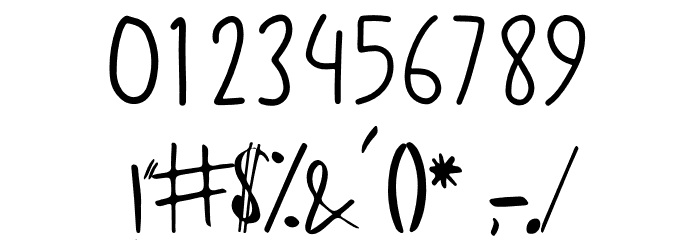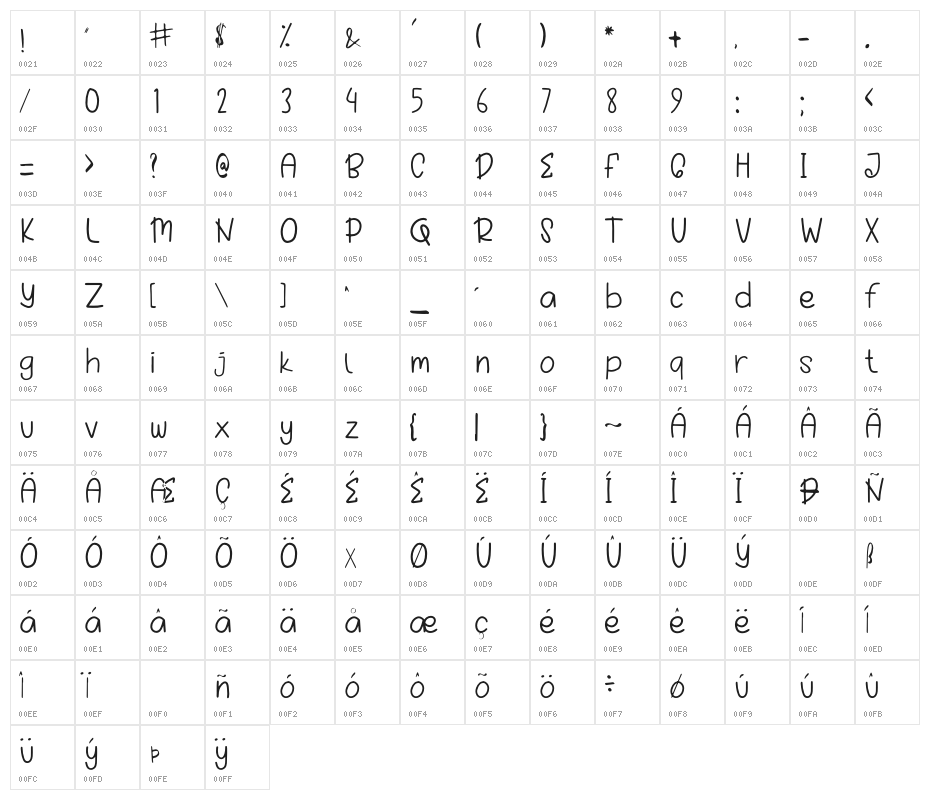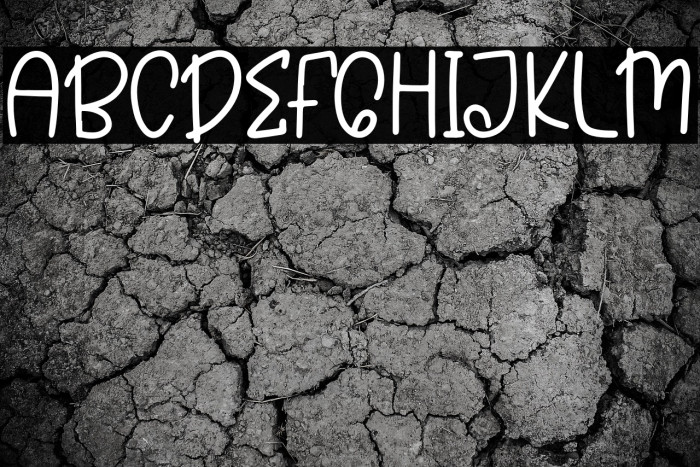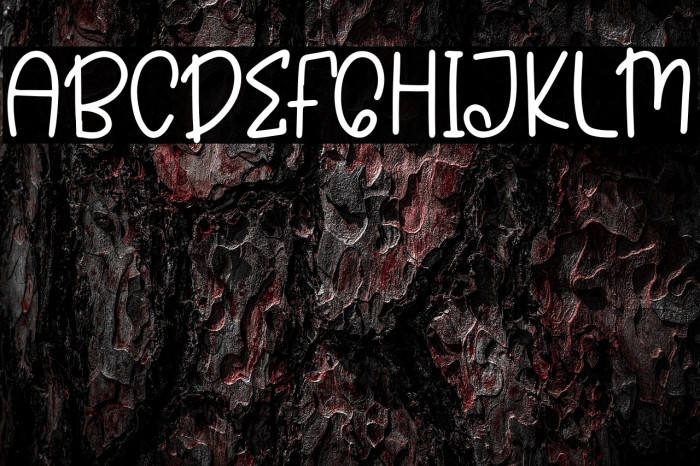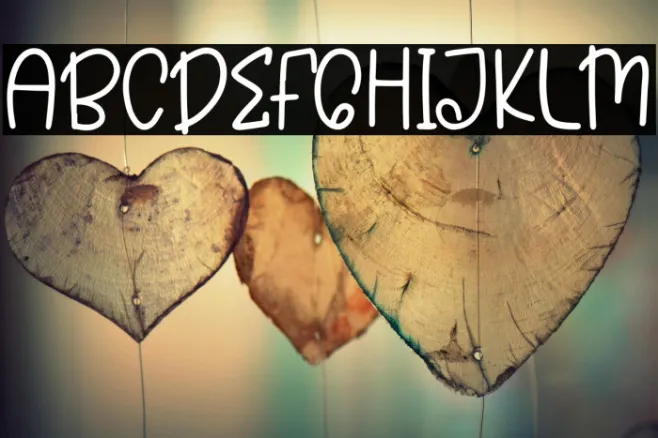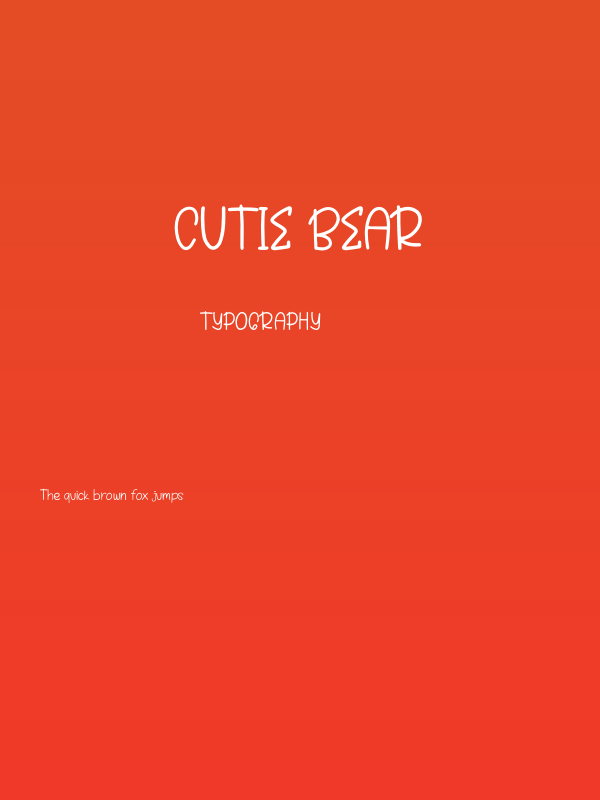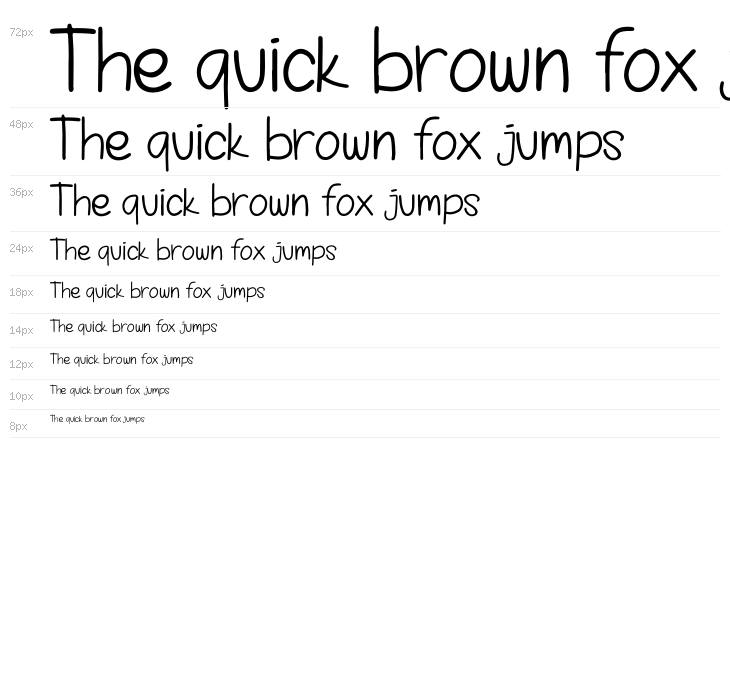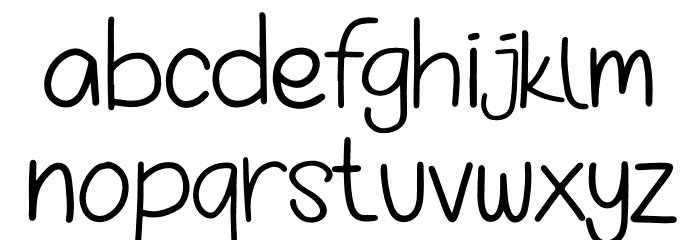
Cutie Bear Font
Cutie Bear Description
This playful and whimsical font features a handwritten style with a casual and friendly appearance. The letters are rounded and slightly irregular, giving it a charming and approachable feel. The uppercase and lowercase letters maintain a consistent style, with a slight slant that adds to its informal nature. The numbers and special characters are designed to match the overall aesthetic, ensuring a cohesive look. This font is perfect for projects that require a personal touch, such as invitations, greeting cards, or children's books. Its unique style makes it stand out, while still being highly readable.
| Proposed Projects | Ideal for invitations, greeting cards, children's books, and playful branding. |